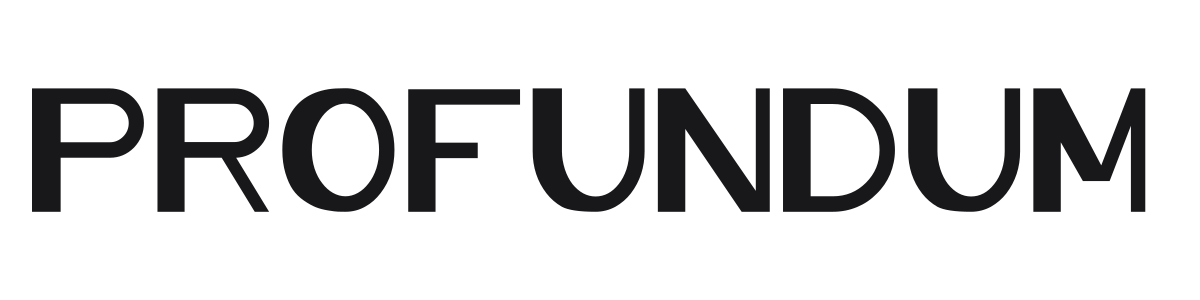
Profundum
by Jaimy van den Hoof
Profundum is a distorted geometric sans that plays with structural irregularities to create a sense of tension and unease. Characters shift and mutate within the same line, mixing standard forms with inverted, fragmented, or angular variants. It belongs to the tradition of deconstructed type used in underground music and experimental design.